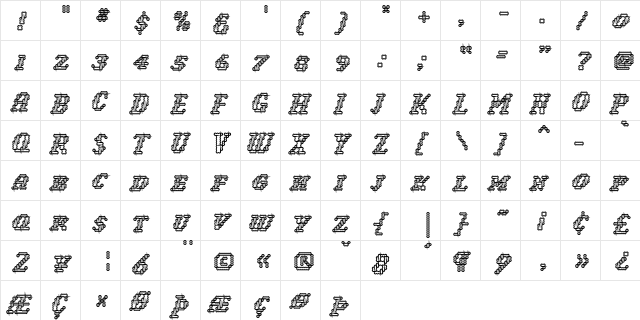
NarlyInline Regular Font Preview
NarlyInline Regular
| Foundry | Emigre Graphics, Designed by Zuzana Licko |
Design Context for NarlyInline Typeface
NarlyInline is built around its visual character rather than neutral utility — its distinctive forms are designed to make an impression at display sizes.
Font Pairing: Pair with a clean neutral sans-serif for body copy to let NarlyInline's character lead without overwhelming the composition.
Pro Tip: Use NarlyInline exclusively at display sizes — it was designed to be seen, not read at length. Let a neutral companion handle body copy.